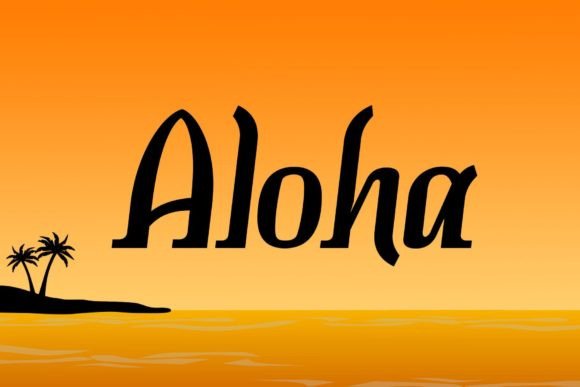
The Aloha Font: A Laid-Back and Fun Display Font for Creative Projects
I’ll never forget the time I was working on a beach-themed craft project, and I just couldn’t find the right font to capture the laid-back vibe I was going for. The client wanted something fun, casual, and natural, but everything I tried seemed either too formal or too quirky. That’s when I stumbled upon the Aloha font, and it was love at first sight! 🌴
The Aloha font is a display font that embodies the spirit of aloha – warm, friendly, and inviting. Its casual and natural character makes it suitable for a wide spectrum of applications, from crafting and DIY projects to digital designs and marketing materials.
An Honest Review of Aloha Font
What I Love About Aloha Font
- ✨ Unique and distinctive character set that stands out from more traditional fonts
- ✅ Highly legible, even at smaller sizes
- 🎉 Fun and playful, perfect for creative projects that need a laid-back vibe
While the Aloha font is an excellent choice for many projects, there are a few things to keep in mind:
- 🤔 May not be the best choice for very formal or professional projects, as it can come across as too casual
- ⚠️ Some users have reported issues with kerning, particularly when using the font at larger sizes
The Story Behind Aloha Font
The Aloha font was designed by a team of creatives who wanted to capture the spirit of aloha – warmth, friendliness, and hospitality. Inspired by the beautiful landscapes and laid-back vibes of Hawaii, they created a font that’s perfect for creative projects that need a touch of tropical flair.
| Font Name | Aloha Font |
| Author | denestudios |
Q: What is the Aloha font best used for?
A: The Aloha font is best used for creative projects that need a laid-back, casual vibe, such as crafting and DIY projects, digital designs, and marketing materials.
Q: Is the Aloha font suitable for formal projects?
A: While the Aloha font is a beautiful and unique font, it may not be the best choice for very formal or professional projects, as it can come across as too casual.
Q: Is the Aloha font easy to read?
A: Yes, the Aloha font is highly legible, even at smaller sizes, making it perfect for a wide range of applications.